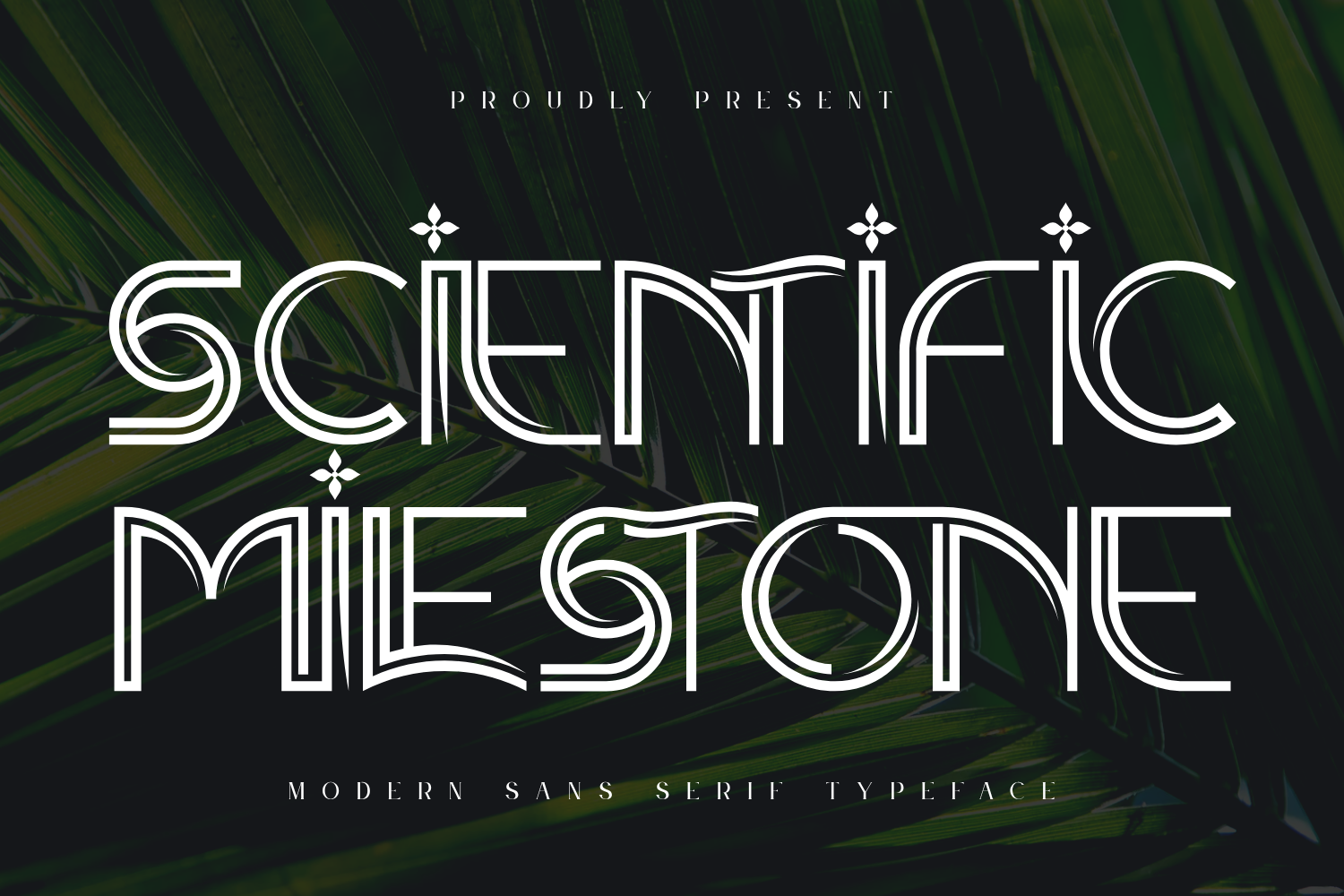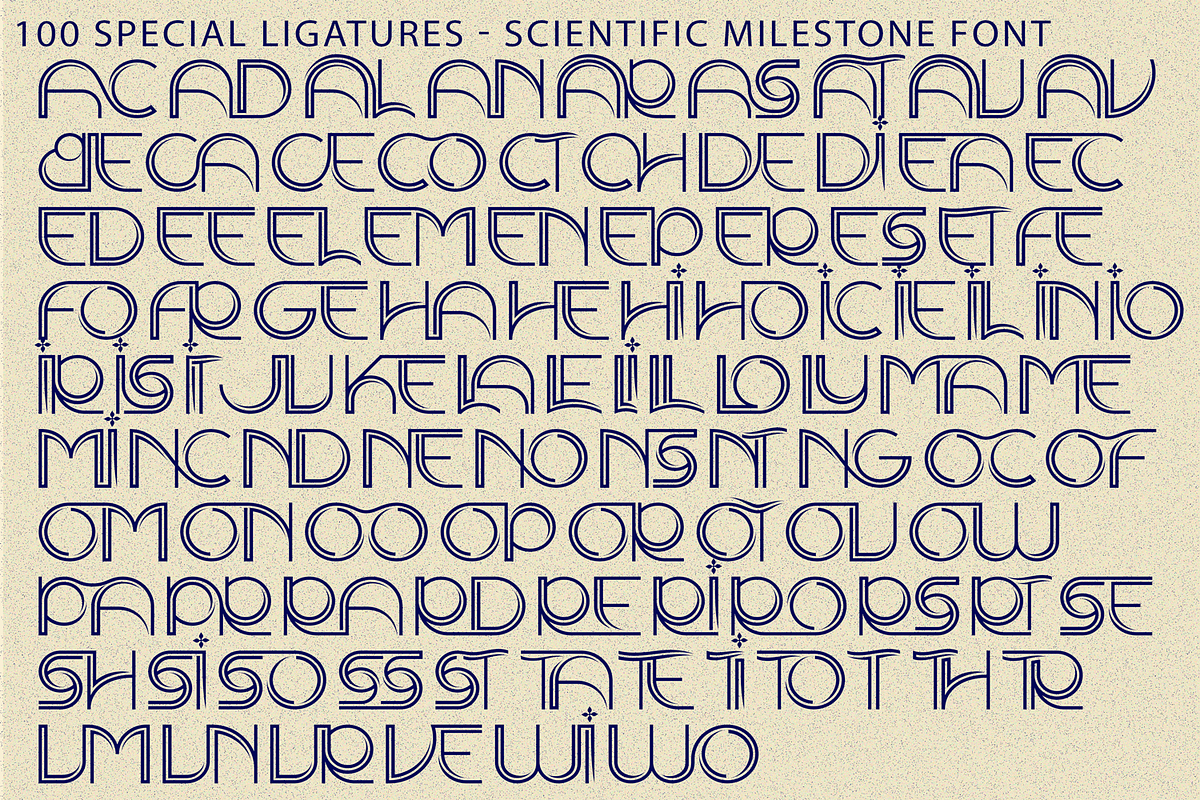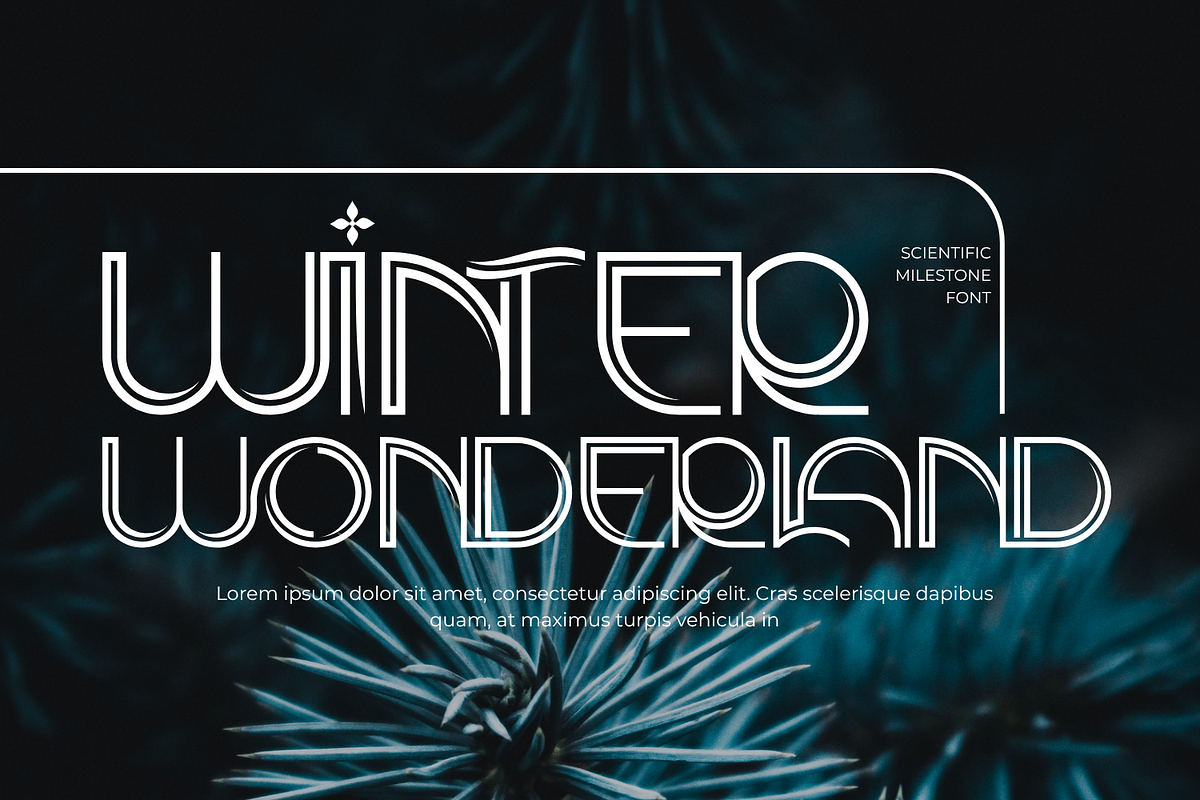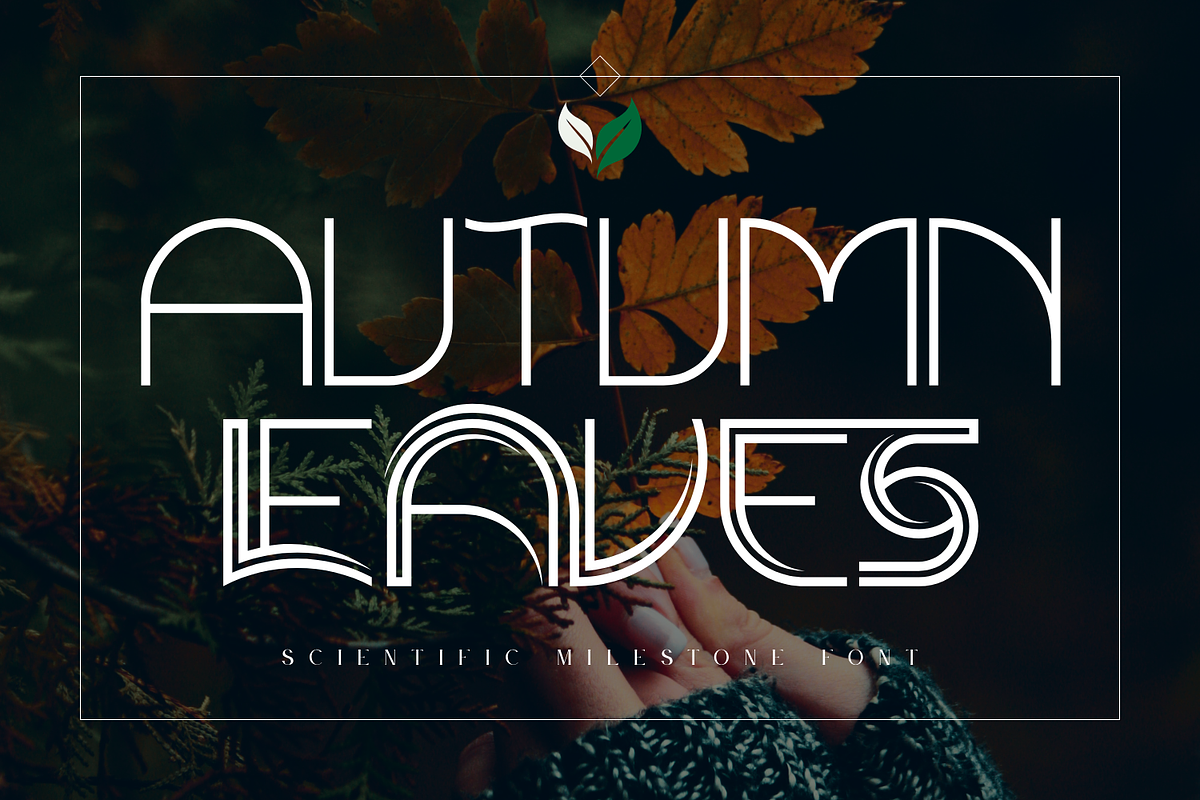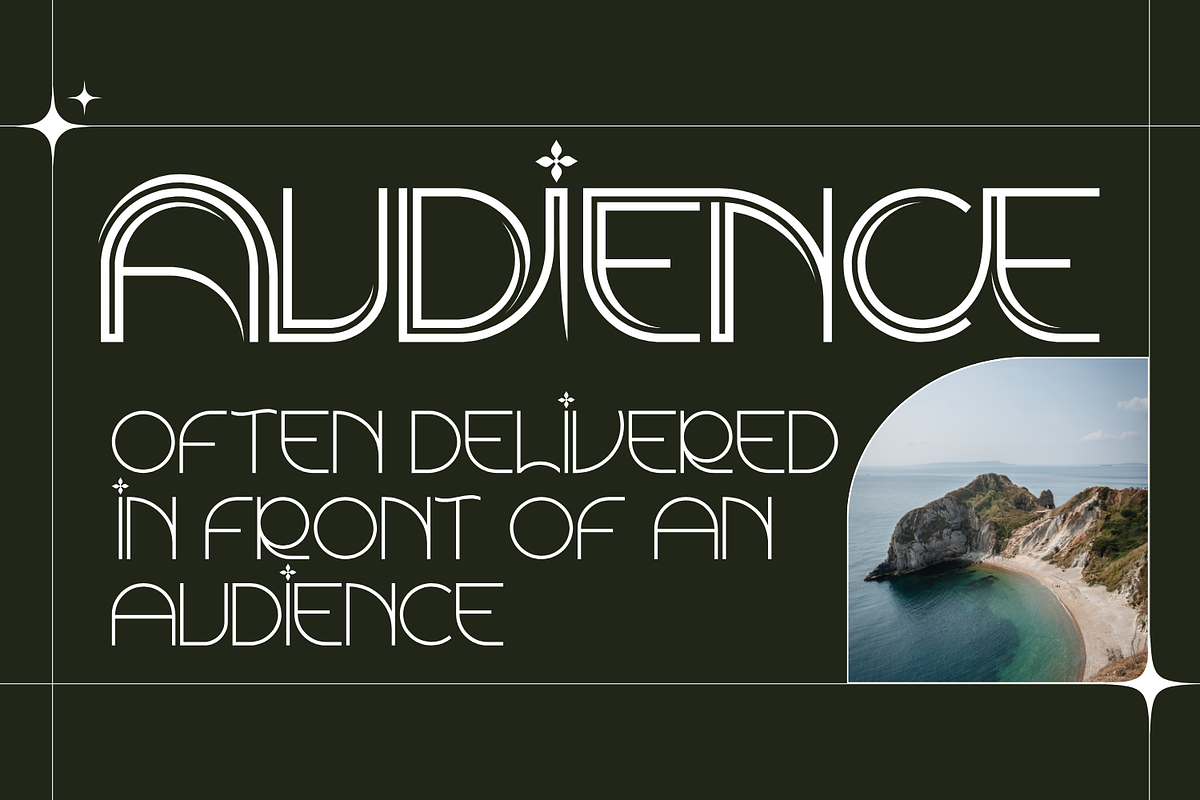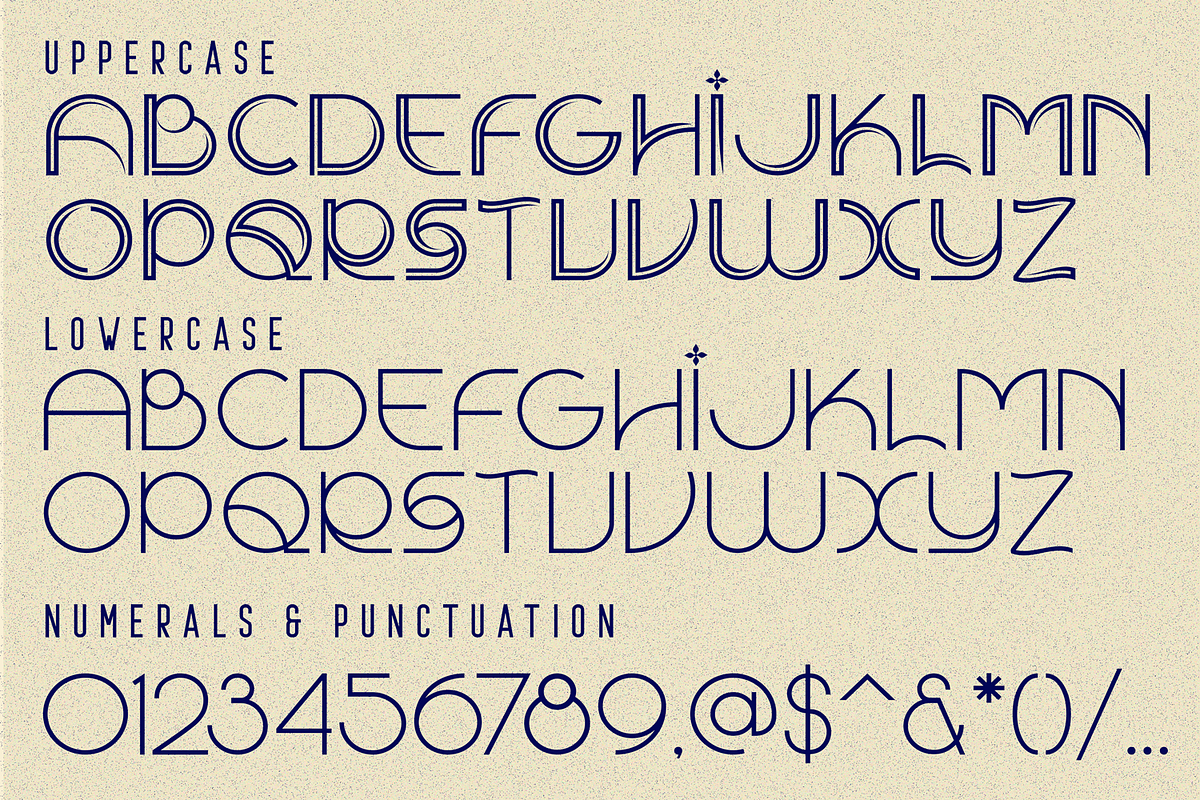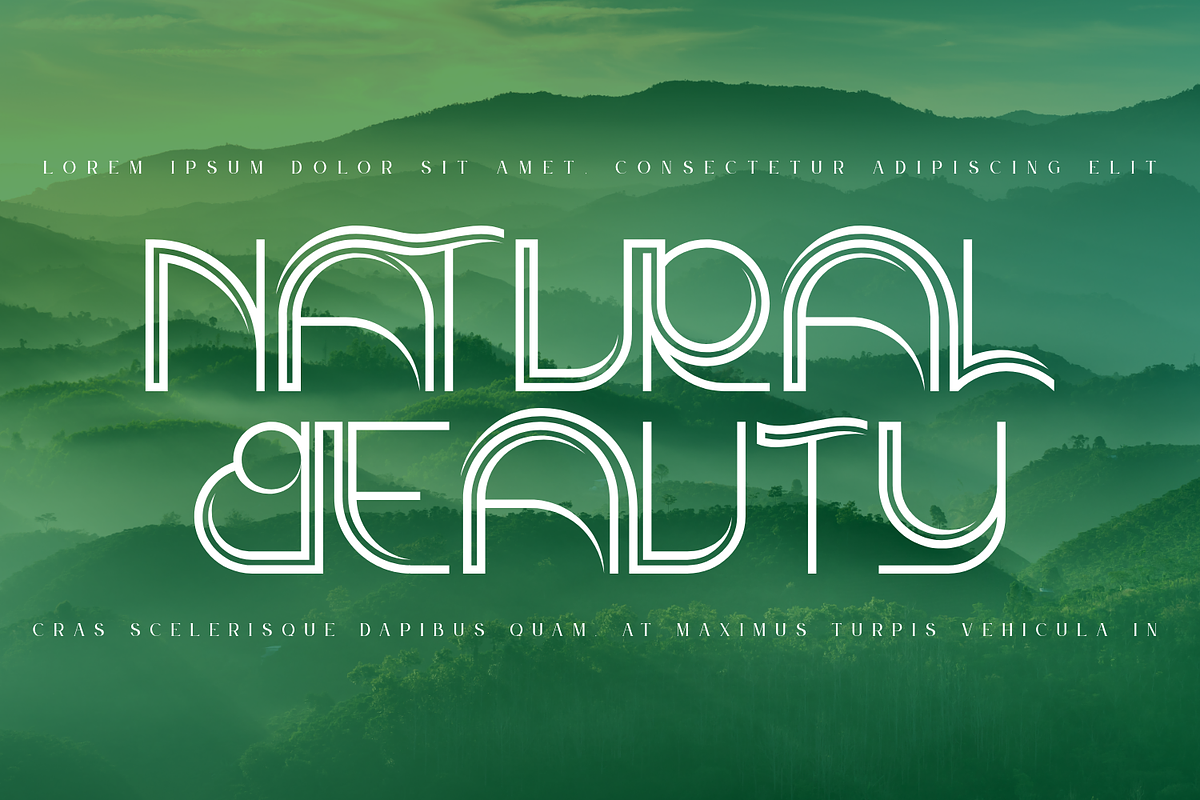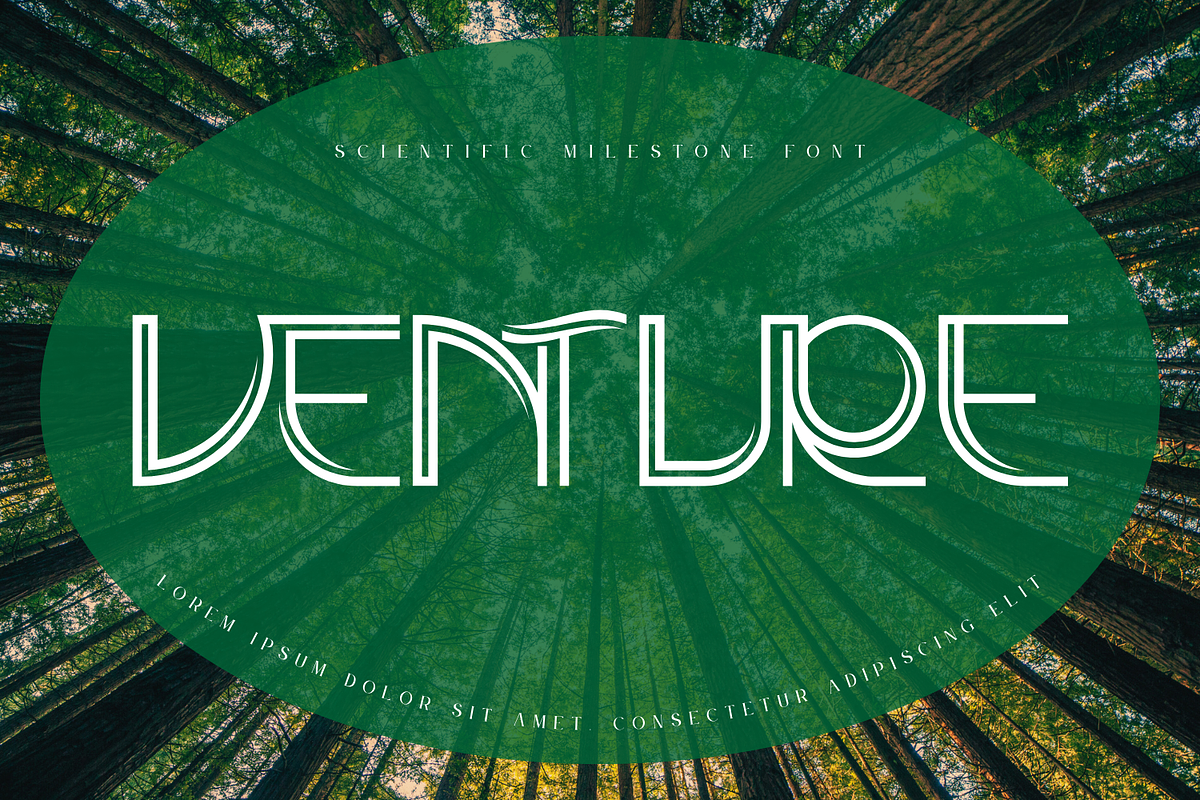
SCIENTIFIC MILESTONE - ART DECO FONT
SCIENTIFIC MILESTONE - ART DECO FONT is an elegant art deco-inspired line sans-serif display typeface that blends vintage sophistication with modern minimalism. Designed with delicate monoline strokes, refined curves, and subtle inline details, this typeface delivers a graceful and luxurious visual presence. Inspired by classic editorial typography and decorative aesthetics, SCIENTIFIC MILESTONE features unique ornamental touches and flowing letterforms that enhance its artistic character. It is perfect for fashion branding, luxury packaging, wedding invitations, editorial layouts, and boutique logo design.
🔤Features:
- Uppercase & Lowercase Letters
- Around 100 Special Ligatures & Alternates
- Accented Characters for multilingual support
🔤About 100 ligatures combined with Stylistic Alternates Font:
AC AD AL AN AR AS AT AU AV BE CA CE CH CO CT DE DI EA EC ED EE EL EM EN EP ER ES ET FE FO FR GE HA HE HI HO IE IC IL IN IO IR IS IT JU KE LA LE LI LL LO LY MA ME MI NC ND NE NG NO NT NS OC OF OM ON OO OP OR OT OU OW PA PR RA RD RE RI RO RS RT SE SH SI SO SS ST TA TE TH TI TO TR TT UM UN UR VE WI WO